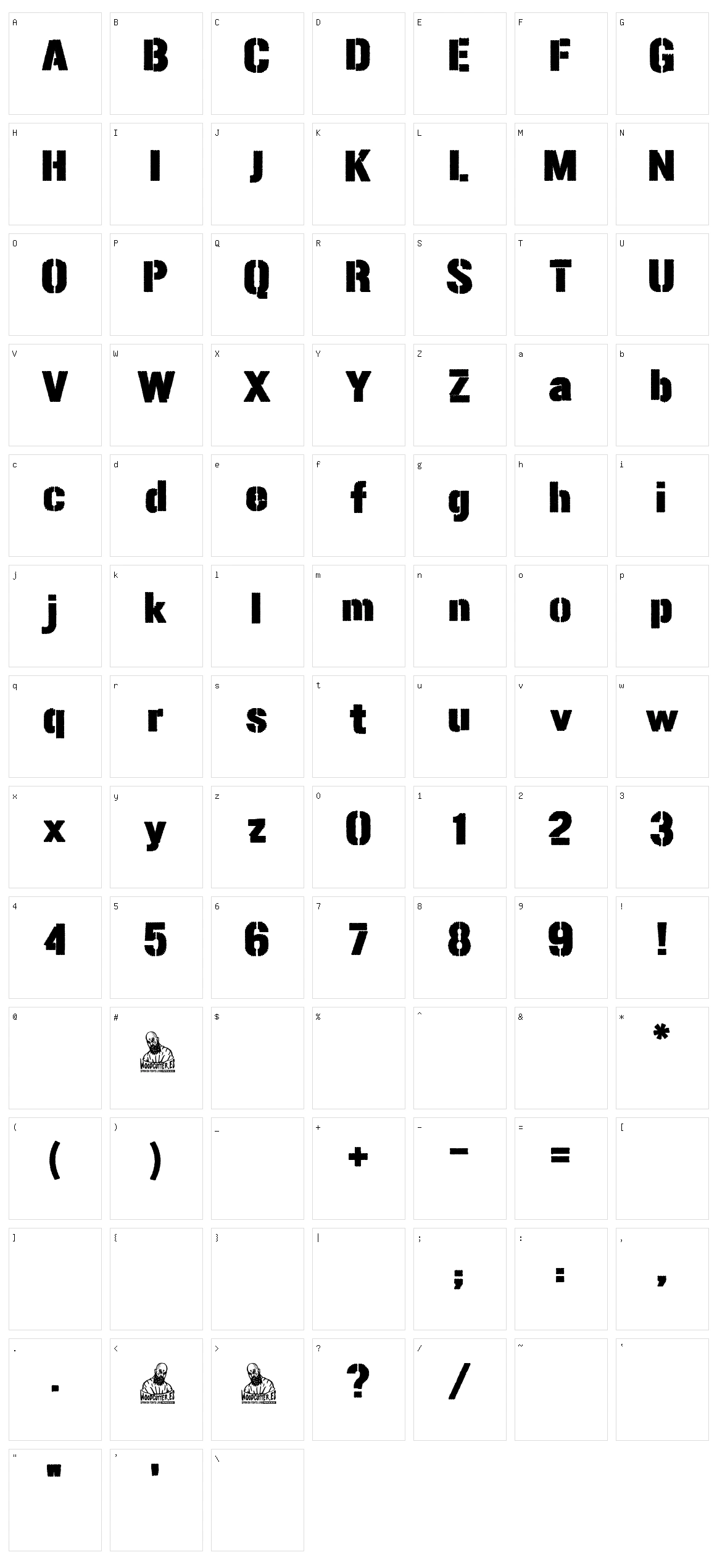
The free font Tanque de Guerra is carefully designed by Woodcutter, showcasing a thoughtful balance of creativity and usability and falls under the Stencil font style. When you download the ZIP file, it contains only 101.54 KB of font files, making it lightweight and quick to download. Please review the license details below to understand permitted usage and distribution rights. If license information is not available, we recommend using this font for personal projects only or contacting the author directly for commercial usage permissions.